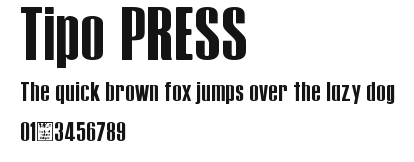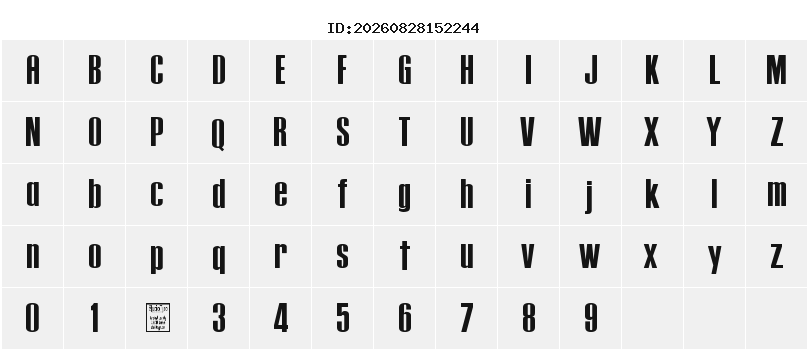
Tipo PRESS Preview
• Font Name: Tipo PRESS
• Manufacturer: StudioTypo
About Tipo PRESS.otf
Tipo PRESS.otf is a modern, elegant sans-serif font designed for ultimate readability and visual harmony. Perfect for branding, headlines, web design, and print materials.